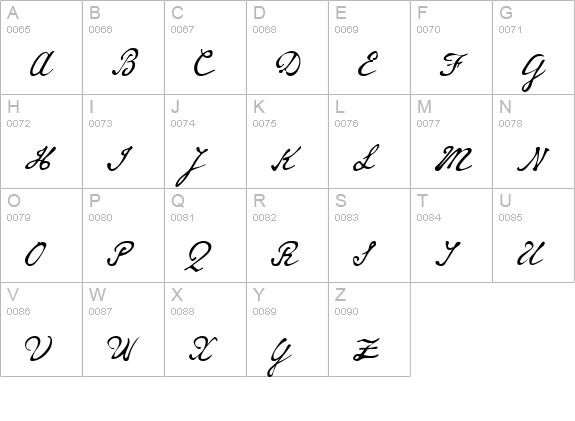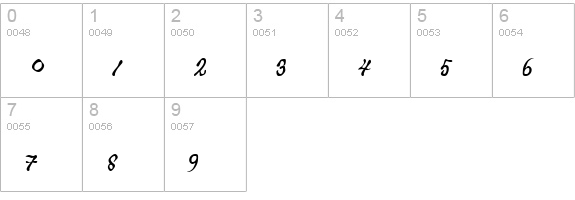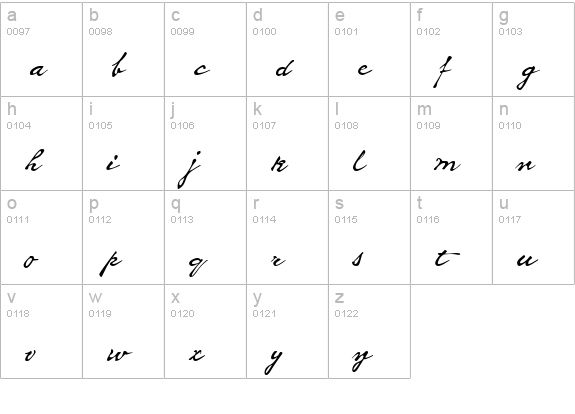
Whitechapel BB Font Details
Whitechapel BB is a versatile and modern font that combines elegance with a touch of playfulness. Its clean lines and rounded edges make it perfect for a wide range of design projects, from branding to packaging to social media graphics. This font strikes the perfect balance between sophistication and approachability, making it a great choice for both professional and creative endeavors. What sets Whitechapel BB apart is its unique character and distinctive personality. The rounded letterforms give it a friendly and inviting feel, while the clean lines ensure readability and clarity. Whether you're looking to create a sleek and polished look or add a bit of whimsy to your designs, Whitechapel BB has you covered. Best of all, Whitechapel BB is available for free download at FontsMarket.com. This means you can easily add this stylish font to your collection without breaking the bank. Don't miss out on this opportunity to enhance your designs with the charm and versatility of Whitechapel BB. Download it today and start creating beautiful and engaging designs with ease.